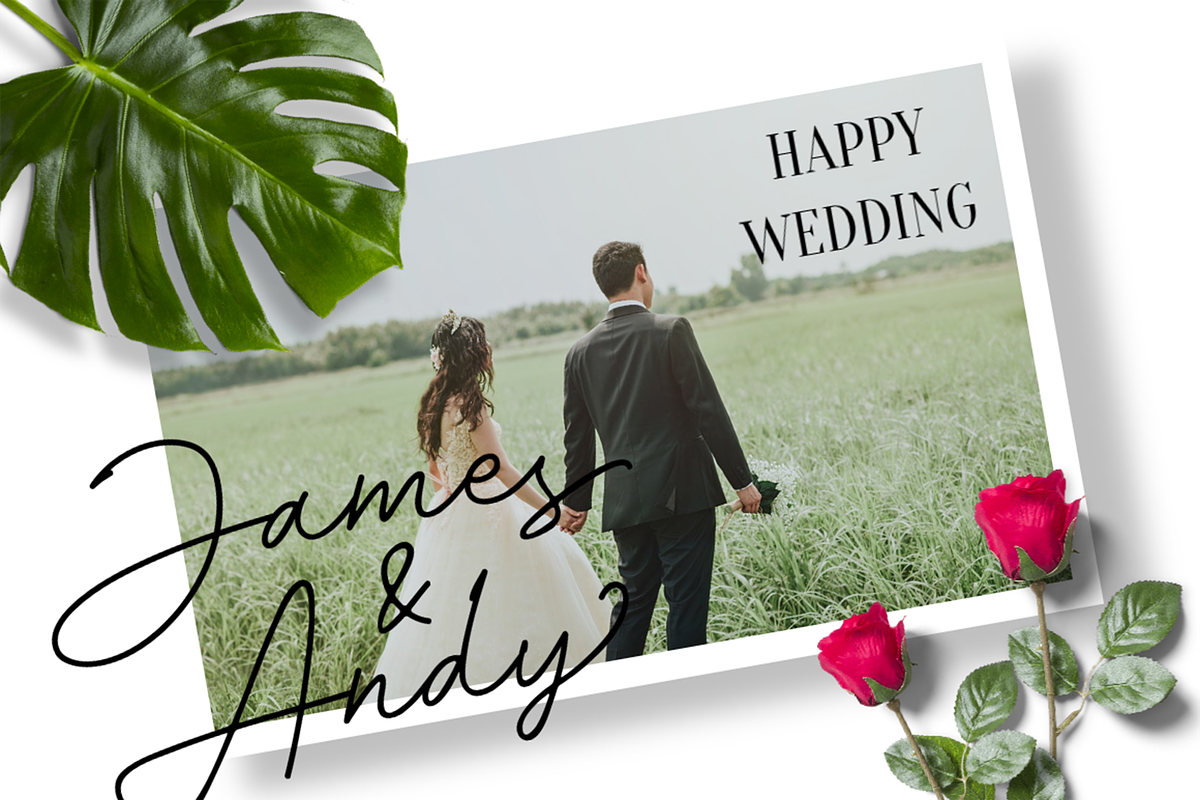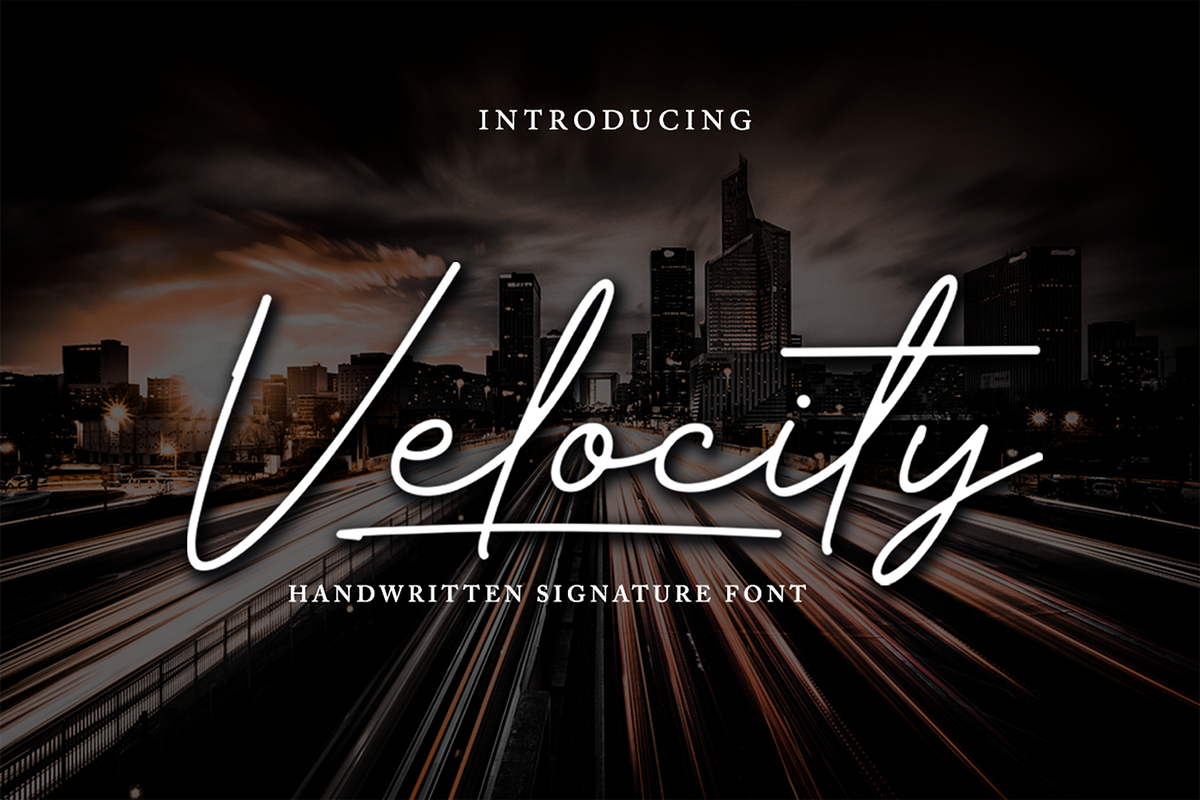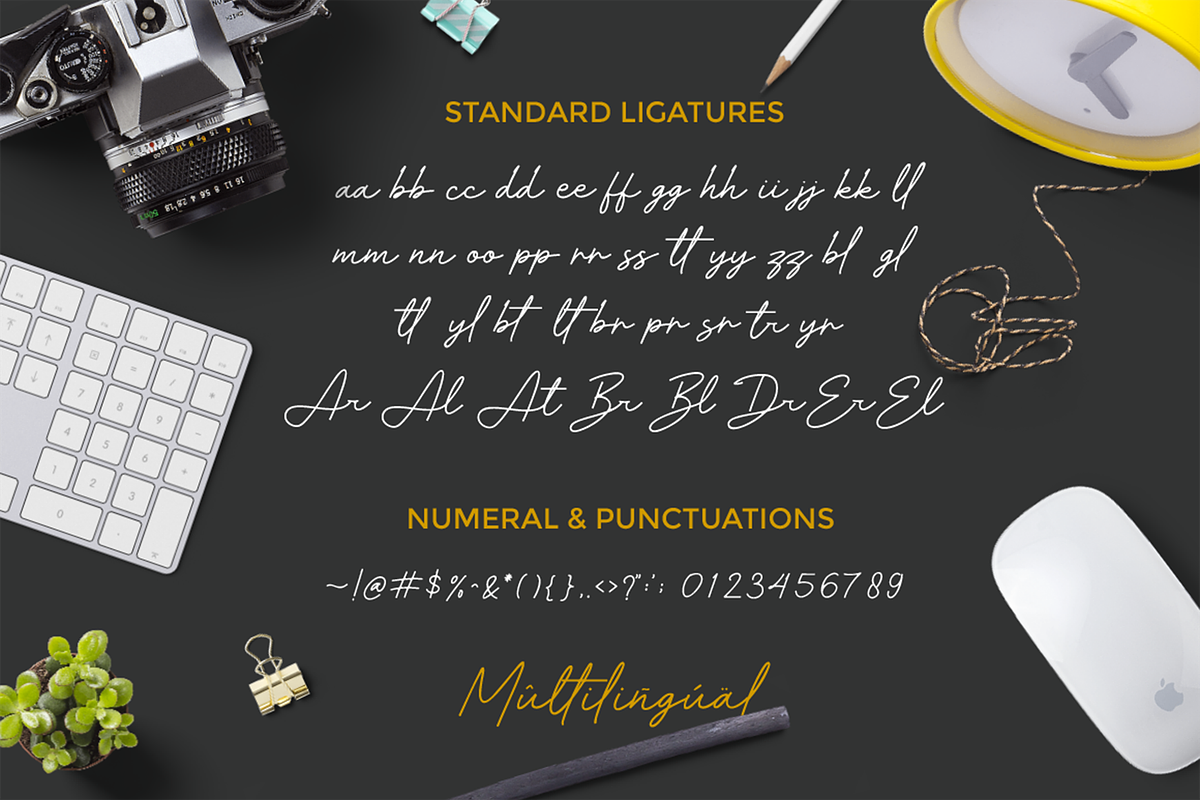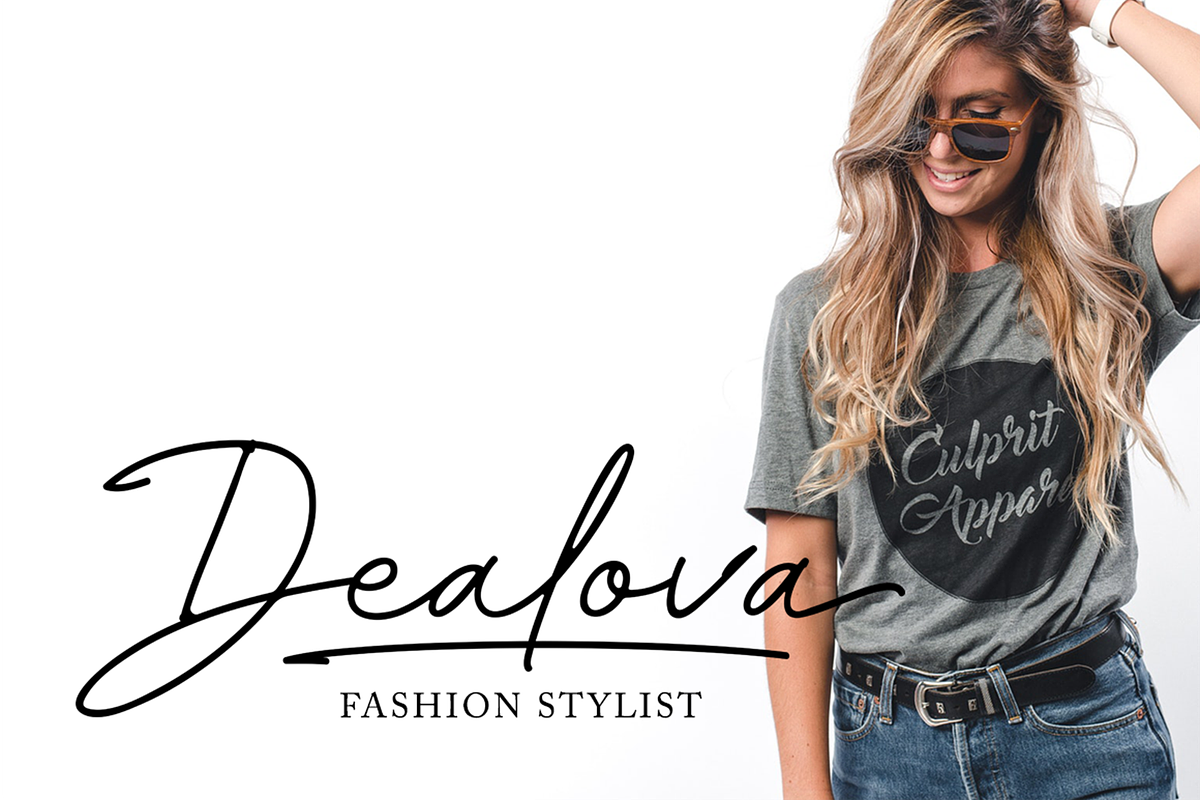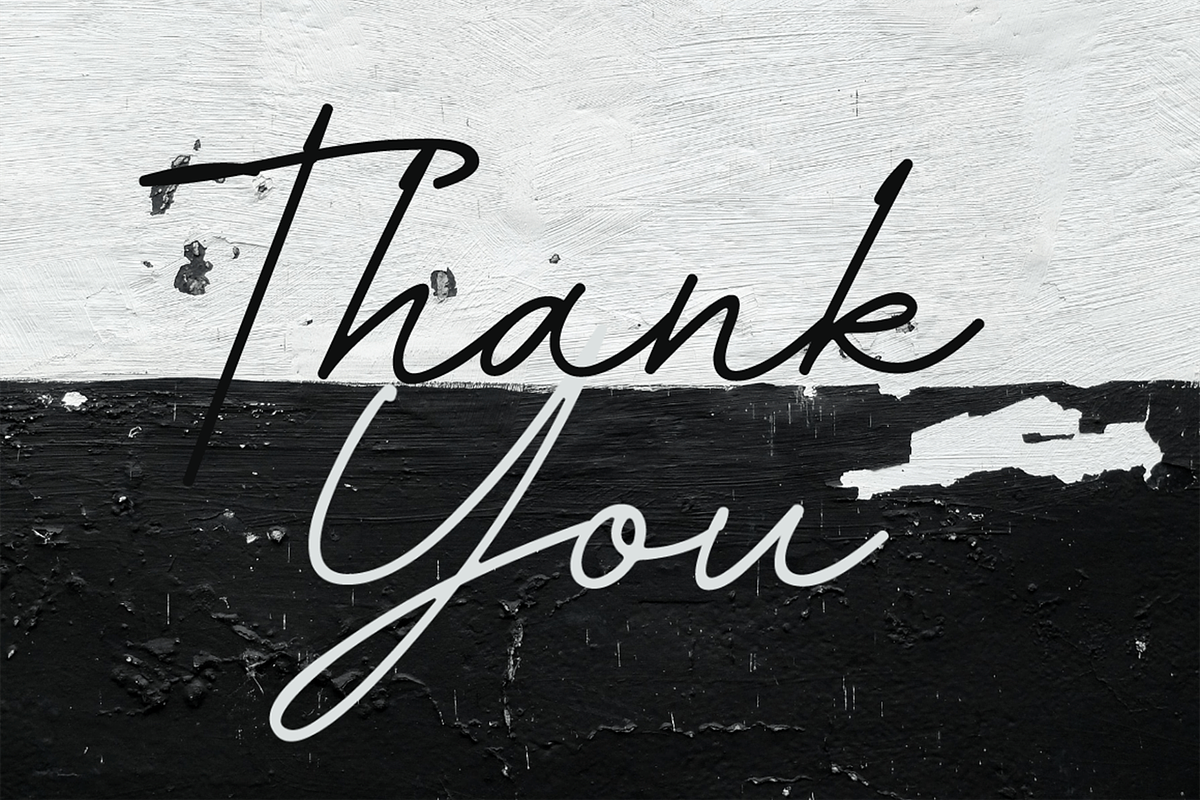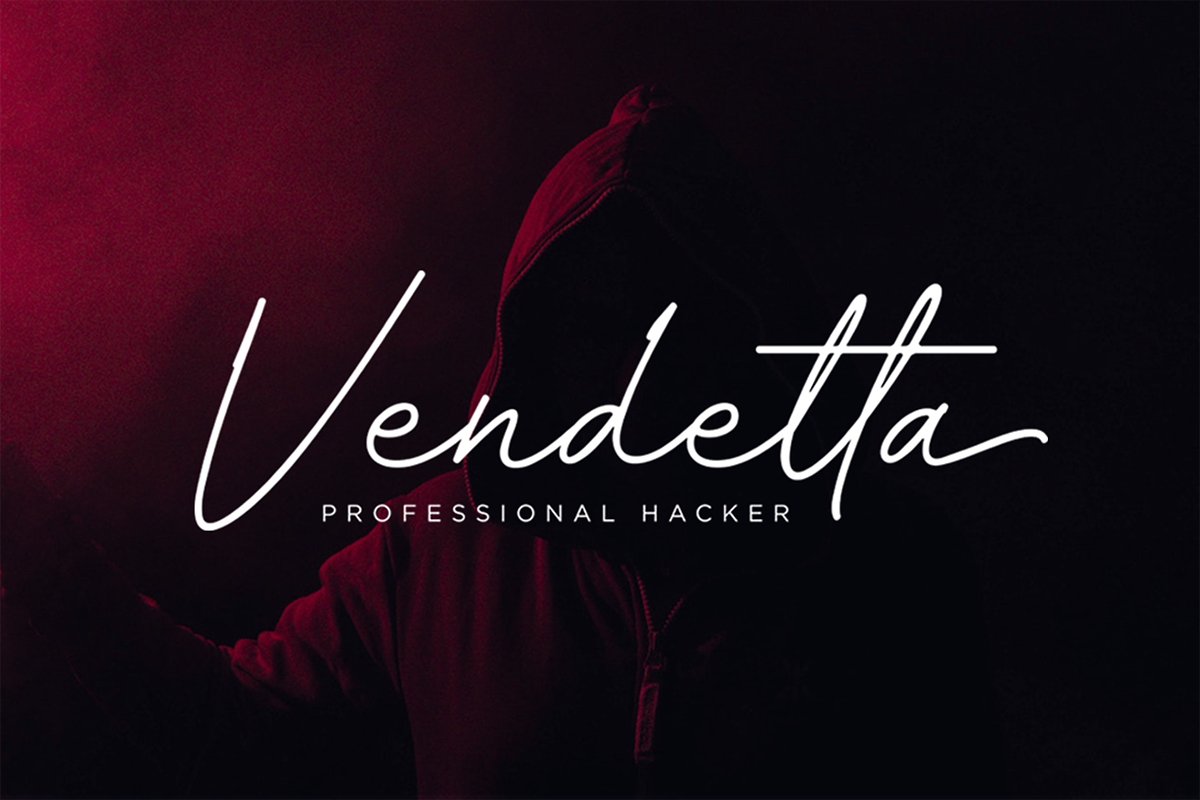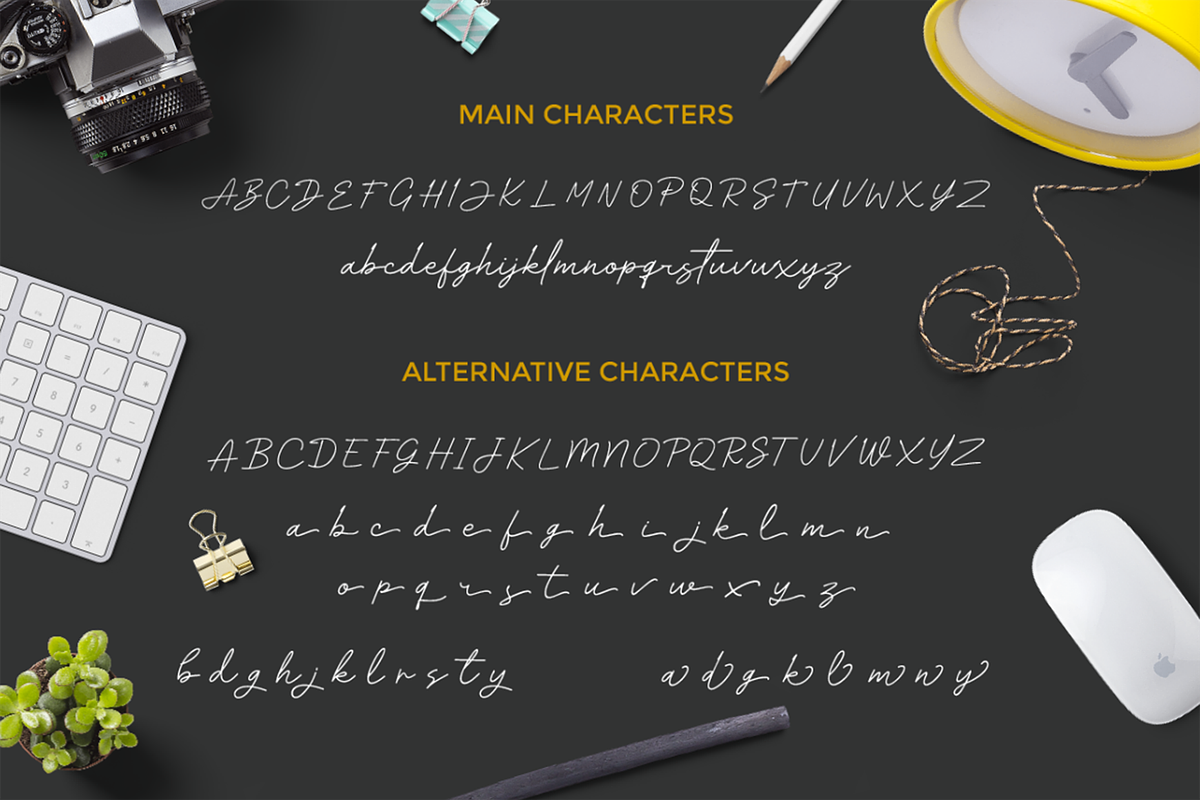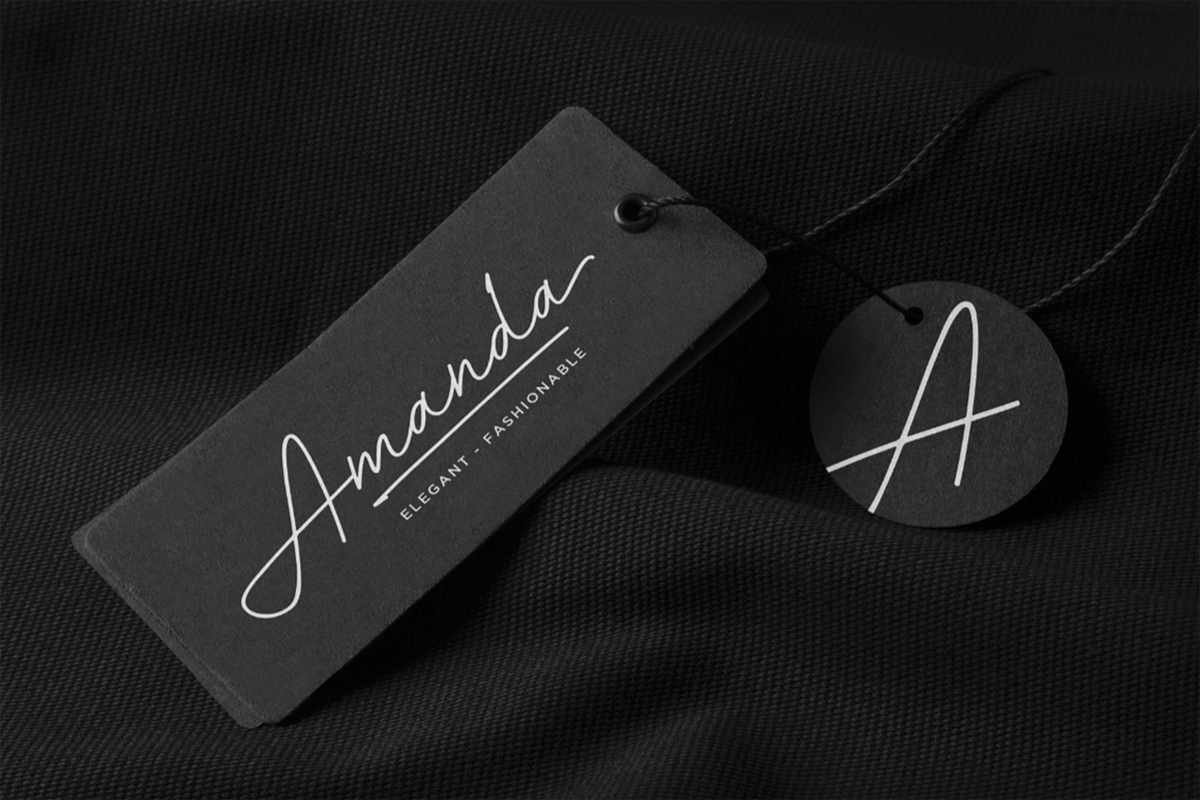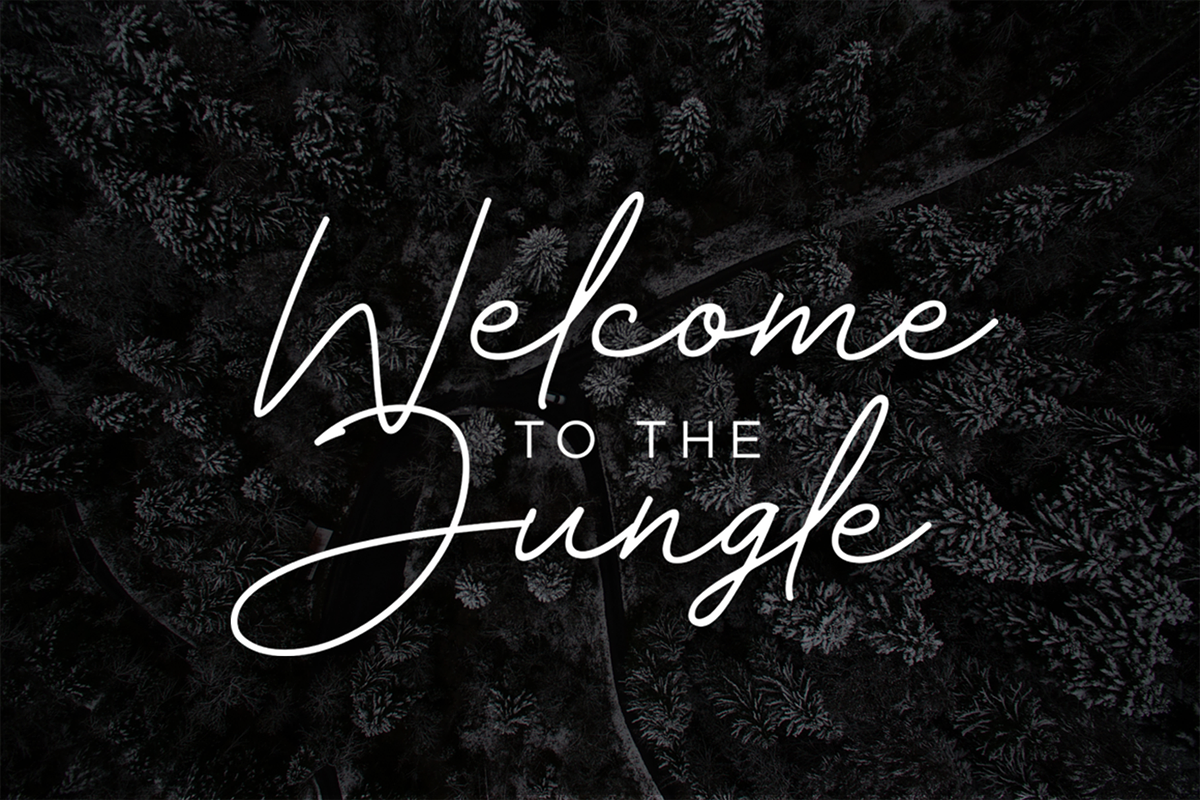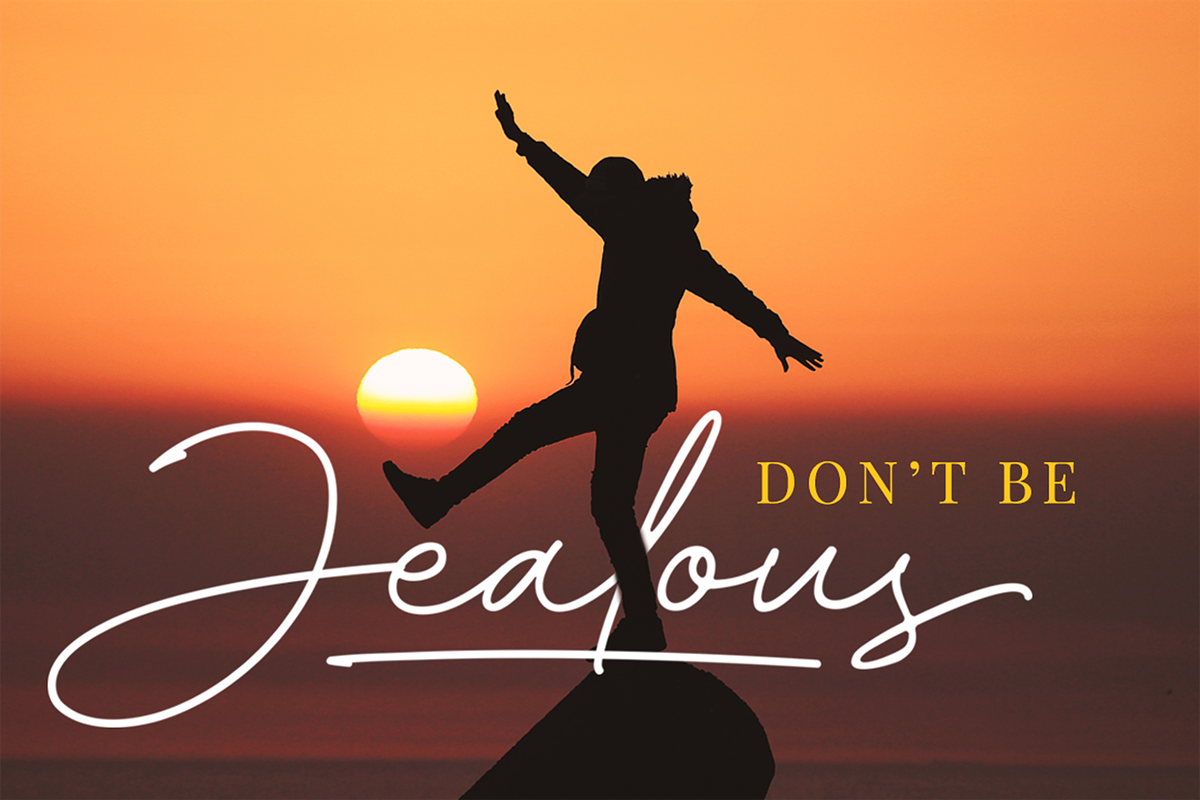
Velocity - Elegant Signature
Velocity is a handwritten signature font. It’s perfect for signature logos, quotes, packaging, fashion, wedding invitations or any business that wants to appear modern and elegant.